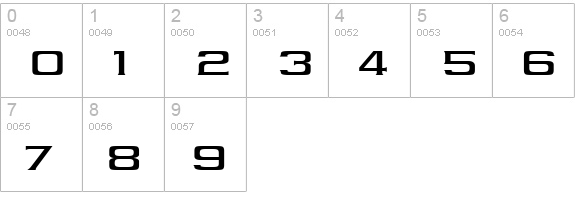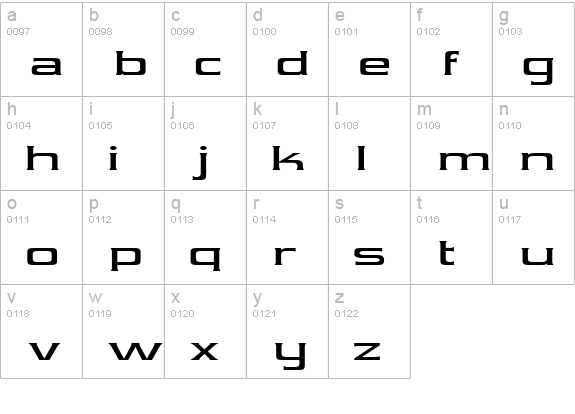
Vibrocentric Font Details
Vibrocentric font is a visually captivating typeface that exudes energy and dynamism with its bold and vibrant design. With its unique blend of geometric shapes and smooth curves, this font makes a powerful statement in any design project. The Vibrocentric font is perfect for those seeking a font that effortlessly stands out and grabs attention. Its strong presence on the page demands to be noticed, making it an ideal choice for headlines, logos, posters, and any other creative endeavor that requires a touch of boldness. What sets Vibrocentric font apart is not just its striking aesthetics, but also its versatility. It can effortlessly adapt to various design styles, whether it be modern, futuristic, or even retro-inspired. This font truly has the ability to elevate any project to new heights. And the best part? Vibrocentric font is freely available to download at FontsMarket.com. With just a few clicks, you can enhance your design toolkit with this incredible font, without having to spend a dime. It's a fantastic opportunity to add a touch of uniqueness and creativity to your projects, without any financial constraints. So why wait? Download Vibrocentric font today and unleash your creativity with this powerful and captivating typeface. Whether you're a designer, a marketer, or simply someone who appreciates beautiful typography, this font is guaranteed to make a lasting impression.